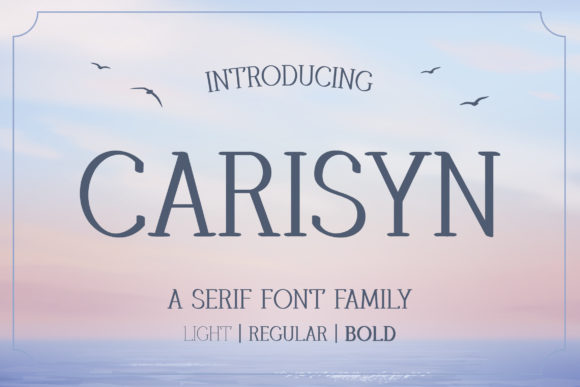
Unleash the Power of Elegance and Distinction: Enter Carisyn Font, the Epitome of Sophistication
In the realm of typography, where fonts hold the power to transform words into captivating expressions, Carisyn Font stands tall as a beacon of elegance and distinction. This meticulously crafted serif font, hailing from the illustrious TypeFactory, is a testament to the art of font design, effortlessly elevating any creation with its timeless charm.
Carisyn Font: A Masterpiece of Simplicity and Allure
Behold the beauty of Carisyn's tall and slender letterforms, each stroke exuding a sense of grace and refinement. Its simple yet captivating design evokes a feeling of sophistication and elegance, adding a touch of distinction to any project.
From the delicate curves of its serifs to the gentle flow of its lines, Carisyn Font embodies the essence of minimalism. This restraint in design allows the true beauty of the font to shine through, making it a versatile choice for a wide range of applications.
The Allure of Carisyn: A Font for Every Occasion
With its timeless appeal, Carisyn Font seamlessly adapts to a multitude of design endeavors. Whether you're crafting a captivating book cover, designing an alluring poster, or creating an unforgettable logo, this font possesses the versatility to elevate your vision.
The crisp and clean lines of Carisyn Font render beautifully in print, making it the ideal choice for creating books, brochures, and other printed materials. Its inherent elegance also shines through in digital designs, adding a touch of sophistication to websites, social media graphics, and presentations.
Carisyn Font: Your Creative Companion for Unforgettable Creations
Step into a world of creative possibilities with Carisyn Font as your trusted companion. Its simple yet striking design empowers you to create captivating designs that leave a lasting impression.
Imagine the allure of a wedding invitation adorned with the graceful strokes of Carisyn Font, inviting guests to a celebration of love and elegance. Or envision the impact of a business card featuring this sophisticated font, conveying professionalism and attention to detail.
With Carisyn Font at your fingertips, you have the power to transform ordinary designs into extraordinary expressions. Its versatility and timeless beauty make it an indispensable tool for any designer seeking to make a statement.